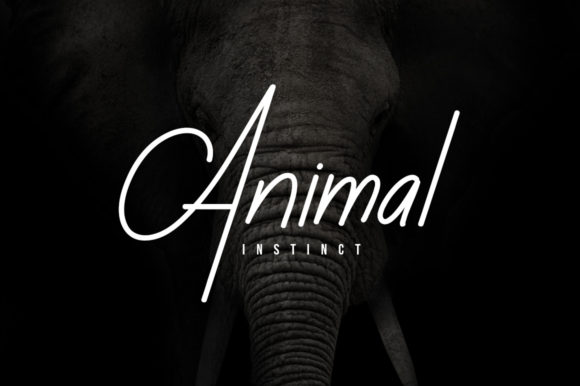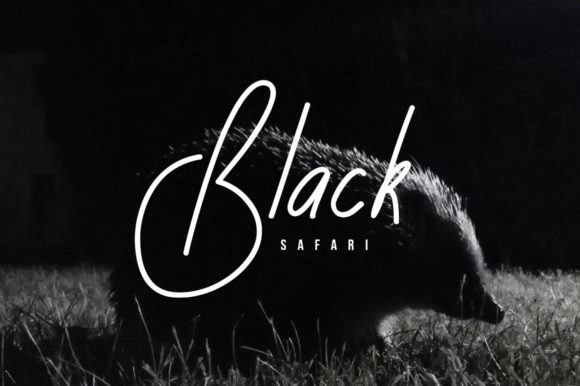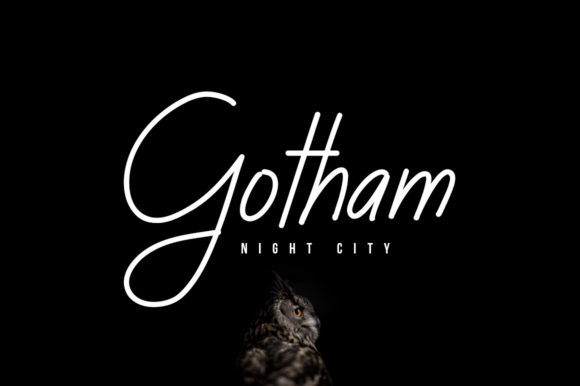
Introduction to Rusa Hitam Font
You’ve spent hours pouring over your design project, carefully selecting every element to make it perfect. But there’s one crucial detail that can make all the difference – the font. A good font can elevate your design from ordinary to extraordinary, and that’s where the Rusa Hitam Font comes in.
Imagine yourself scrolling through a design blog, and suddenly, you stumble upon a project that catches your eye. The text is playful, yet sophisticated, and the overall design feels fresh and unique. That’s the magic of Rusa Hitam Font – a free download that offers a high-quality, classic style with a friendly feel.
For designers, having access to a reliable design resource like Rusa Hitam Font is invaluable. It allows you to create original and outstanding designs with ease, perfect for any creative project that requires a touch of personality.
Key Features of Rusa Hitam Font
- High-quality design resource ideal for creative projects, offering a unique and stylish aesthetic.
- Characterized by its sleek and modern design, making it an excellent choice for contemporary creative projects.
Honest Review: Rusa Hitam Font
I recently had the opportunity to work with the Rusa Hitam Font for a creative project, and I must say it was a great experience. As a designer, I’m always on the lookout for high-quality design resources that can elevate my work. The Rusa Hitam Font did not disappoint.
- ✨ One of the standout features of this font is its versatility. It works well for both modern and traditional designs, making it a great addition to any design project.
However, there are a few limitations to consider.
- ⚠️ The Rusa Hitam Font may not be the best option for designers who need a font with a lot of character variations. The font has a limited number of styles, which may limit its use in certain creative projects.
- ⚠️ Additionally, the font may not be suitable for designers who need a font with a specific tone or atmosphere. The Rusa Hitam Font has a fairly neutral tone, which may not be ideal for designers who need a font with a lot of personality.
Overall, I was impressed with the Rusa Hitam Font and would definitely recommend it to designers who are looking for a high-quality, versatile font for their creative projects.
Rusa Hitam Font is commonly used in design projects that require a bold and elegant look. It’s perfect for creating invitations, logos, and other visual elements.